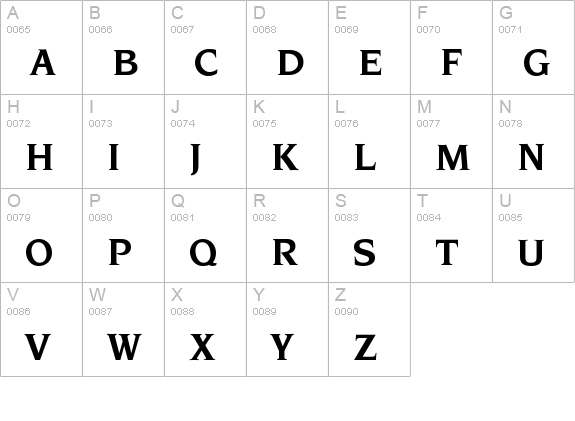
Trident SSi Bold is a strong, high-contrast variant in the Trident typeface family \xE2\x80\x94 well suited to headlines, attention-grabbing titles, and strong calls-to-action.
Trident SSi Bold font is a captivating and bold typeface that exudes confidence and power. With its sleek and modern design, this font is perfect for creating eye-catching headlines, logos, and advertising materials. The sharp edges and strong lines of Trident SSi Bold make it stand out from the crowd, commanding attention and leaving a lasting impression. One of the greatest advantages of Trident SSi Bold is that it is available for free download at FontsMarket.com. This means that you can easily access and utilize this stunning font for any personal or commercial project without any cost. Whether you're a professional designer or just starting out, Trident SSi Bold offers you the opportunity to enhance your creations with a touch of elegance and sophistication. With its wide range of characters and glyphs, Trident SSi Bold provides versatility and flexibility in your design work. From bold headlines to stylish captions, this font allows you to express your message with clarity and impact. Its unique and distinctive appearance adds a touch of professionalism to any project, making it a valuable asset for designers, marketers, and creatives alike. Enhance your designs with the power and elegance of Trident SSi Bold. Download this amazing font for free at FontsMarket.com and unlock a world of creative possibilities. Whether you're working on a poster, website, or branding project, Trident SSi Bold will elevate your design to new heights, leaving a lasting impression on your audience. Don't miss out on this opportunity to add a touch of boldness and sophistication to your creations - get Trident SSi Bold today!